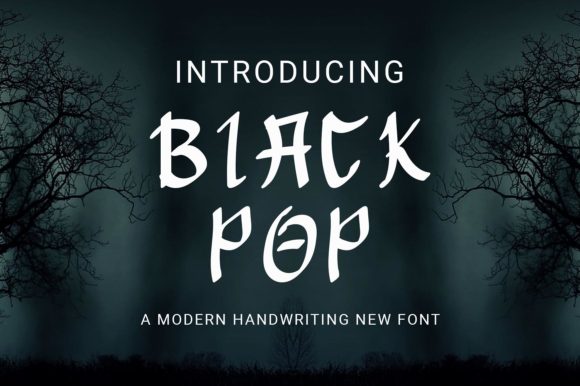
Introducing Black Pop Font: Your Gateway to Creative Expression
In a world of digital monotony, where fonts often blend into the background, Black Pop Font emerges as a beacon of individuality, ready to ignite your creative spark. This captivating script font is not just a collection of letters; it's a gateway to a world of boundless expression, where your words take on a life of their own.
Imagine the allure of a handwritten note, the charm of a vintage postcard, the boldness of a striking logo—Black Pop Font captures the essence of these elements and weaves them into a single, enchanting package. Its quirky and playful style adds a touch of whimsy to any project, whether it's a heartfelt letter, an eye-catching social media post, or a stunning piece of art.
With Black Pop Font, you're not just downloading a font; you're inviting a muse into your creative space. Let its elegant curves and lively strokes guide your imagination, transforming ordinary words into captivating stories. Its versatility knows no bounds, effortlessly adapting to your artistic vision, whether it's a rustic wedding invitation, a vibrant poster, or a stylish T-shirt design.
Picture yourself crafting a heartfelt letter to a loved one, the words flowing seamlessly from your fingertips, each stroke imbued with emotion. Or envision creating a captivating social media post that leaps off the screen, grabbing attention with its unique and captivating charm. The possibilities are endless, limited only by the reaches of your imagination.
Black Pop Font is more than just a tool; it's a companion on your creative journey, a faithful ally that amplifies your artistic voice. It whispers encouragement, urging you to break free from the mundane and embrace the extraordinary. With Black Pop Font as your trusted companion, you'll find yourself creating designs that captivate, inspire, and leave a lasting impression.
So, why settle for ordinary fonts when you can unleash the extraordinary with Black Pop Font? Dive into a world of creative possibilities, where your words and designs take on a life of their own. Experience the joy of self-expression like never before, and let Black Pop Font be your guide on this enchanting journey.